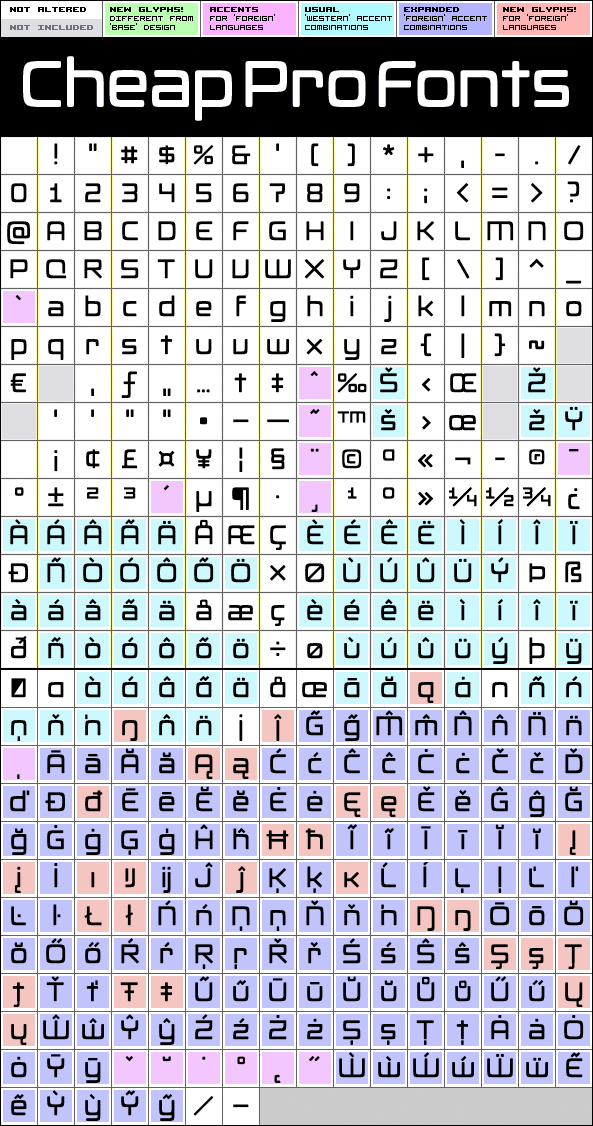
Isbit Pro Regular
Isbit Pro Regular by Roger S. Nelsson
400 glyphs!
218 class kernpairs
= 2577 kerning pairs
Inspired by the shape of melting icecubes ("isbit" is the norwegian word for "ice cube"), this small superelliptical font family is perfect for logos and headlines. An alternate lowercase a and n is available as stylistic alternates - and a straight lowercase j (which also will be automatically substituted when the nornal j would collide with the preceding glyph).
Isbit Pro Regular is a professionally reworked font that contains an extended character set for setting text in 65 languages requiring more than the basic A-Z!